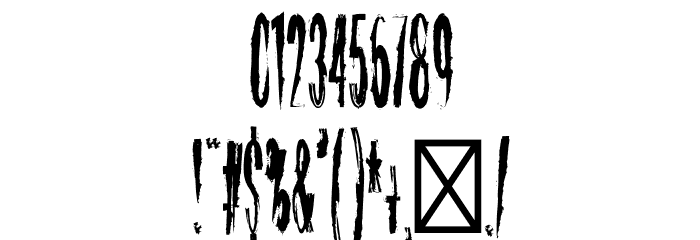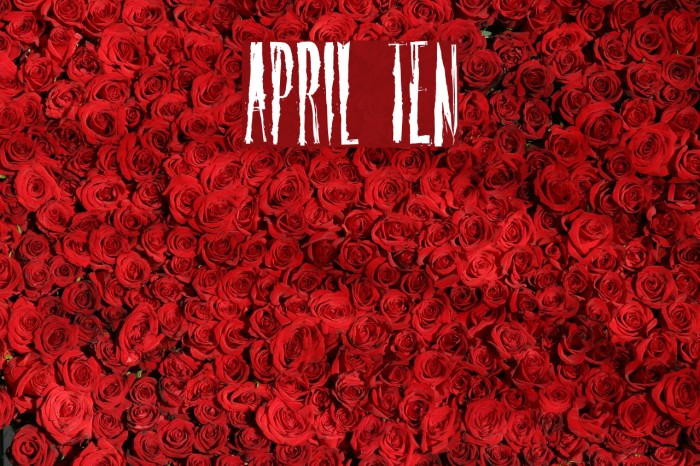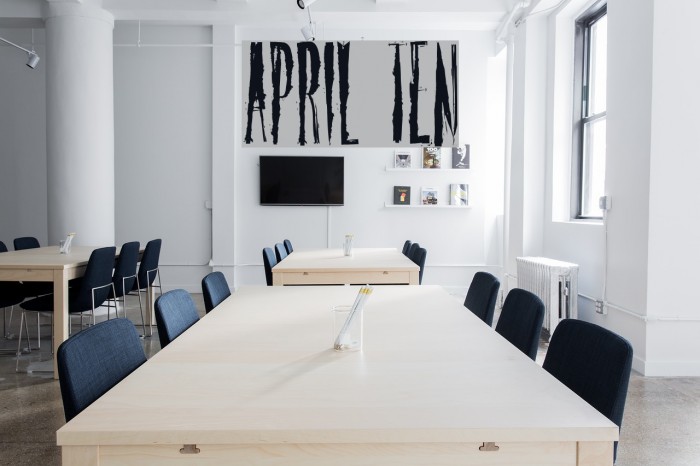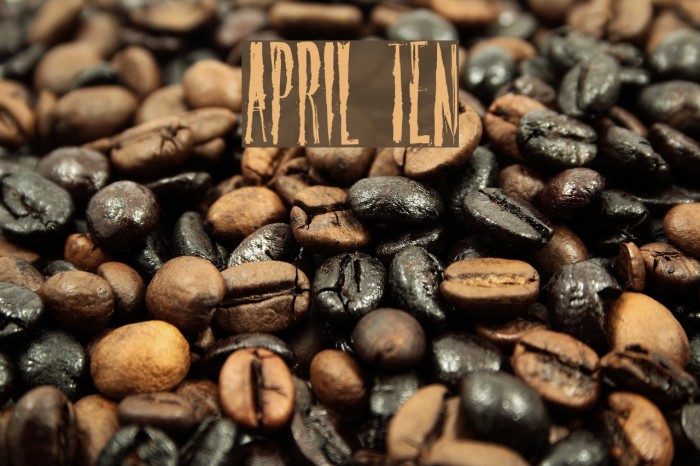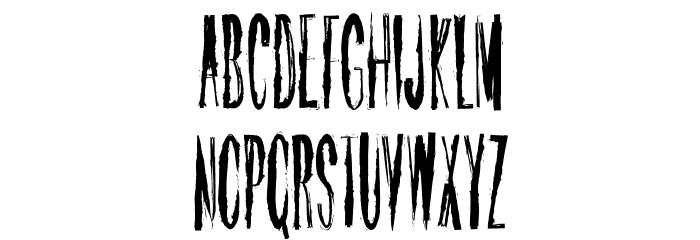
April Ten Font
April Ten Description
This font features a distressed, grunge style with uneven edges and a textured appearance, giving it a raw and edgy look. The uppercase and lowercase letters maintain a consistent height, creating a uniform appearance despite the rugged texture. The numbers and special characters follow the same distressed theme, adding to the overall cohesive design. This font is ideal for projects that require a bold, eye-catching statement with a touch of rebellion or artistic flair.
A distressed, grunge-style font with a textured, edgy appearance from Horror fonts.
- Proposed Projects: Ideal for music album covers, posters, streetwear branding, or any design needing a bold, rebellious touch.
- Overall Style: Grunge, Edgy